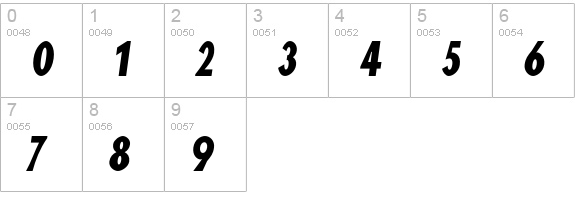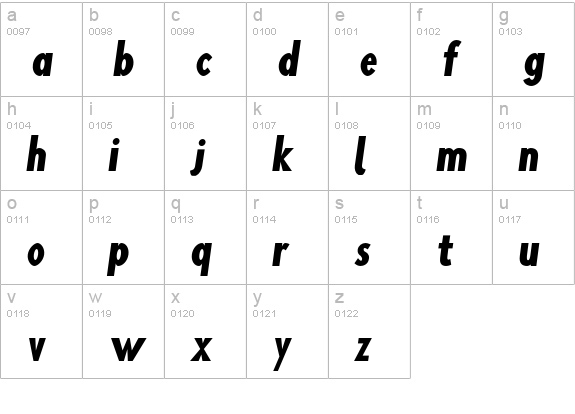
Blink Oblique Font Details
Blink Oblique is a distinctive, italic variant in the Blink typeface family \xE2\x80\x94 well suited to design and typography projects.
Introducing Blink Oblique, a striking and contemporary font that captures the essence of modern design. With its sleek and elegant curves, this font is perfect for those looking to add a touch of sophistication to their projects. Whether you're creating a logo, branding materials, or a website, Blink Oblique will make a lasting impression. This versatile font is designed with creativity in mind. Its unique and dynamic letterforms are sure to catch the eye and add a sense of energy to any design. The oblique style adds a subtle twist, giving your text a sense of movement and depth. But perhaps the most enticing aspect of Blink Oblique is that it is free. That's right, this exceptional font is freely available to download at FontsMarket.com. We believe that creativity should never be limited by budget constraints, and that's why we're giving you the opportunity to enhance your designs with this remarkable font at no cost. So why wait? Download Blink Oblique today and elevate your designs to a whole new level. Whether you're a professional designer or a passionate hobbyist, this font is sure to become your go-to choice for adding a touch of contemporary flair to your projects. Don't miss out on this incredible opportunity to unleash your creativity with Blink Oblique, available for free at FontsMarket.com.